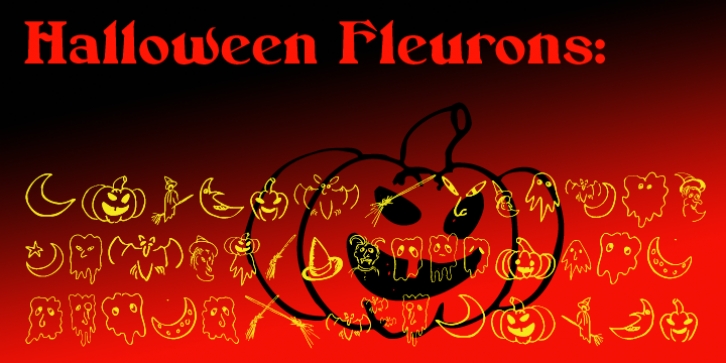
Halloween Fleurons was designed by Paul Lloyd and published by Greater Albion Typefounders. Halloween Fleurons contains 1 style.
Here's something for all Halloween projects! Halloween Fleurons are hand-designed ornaments for your spooky enjoyment.